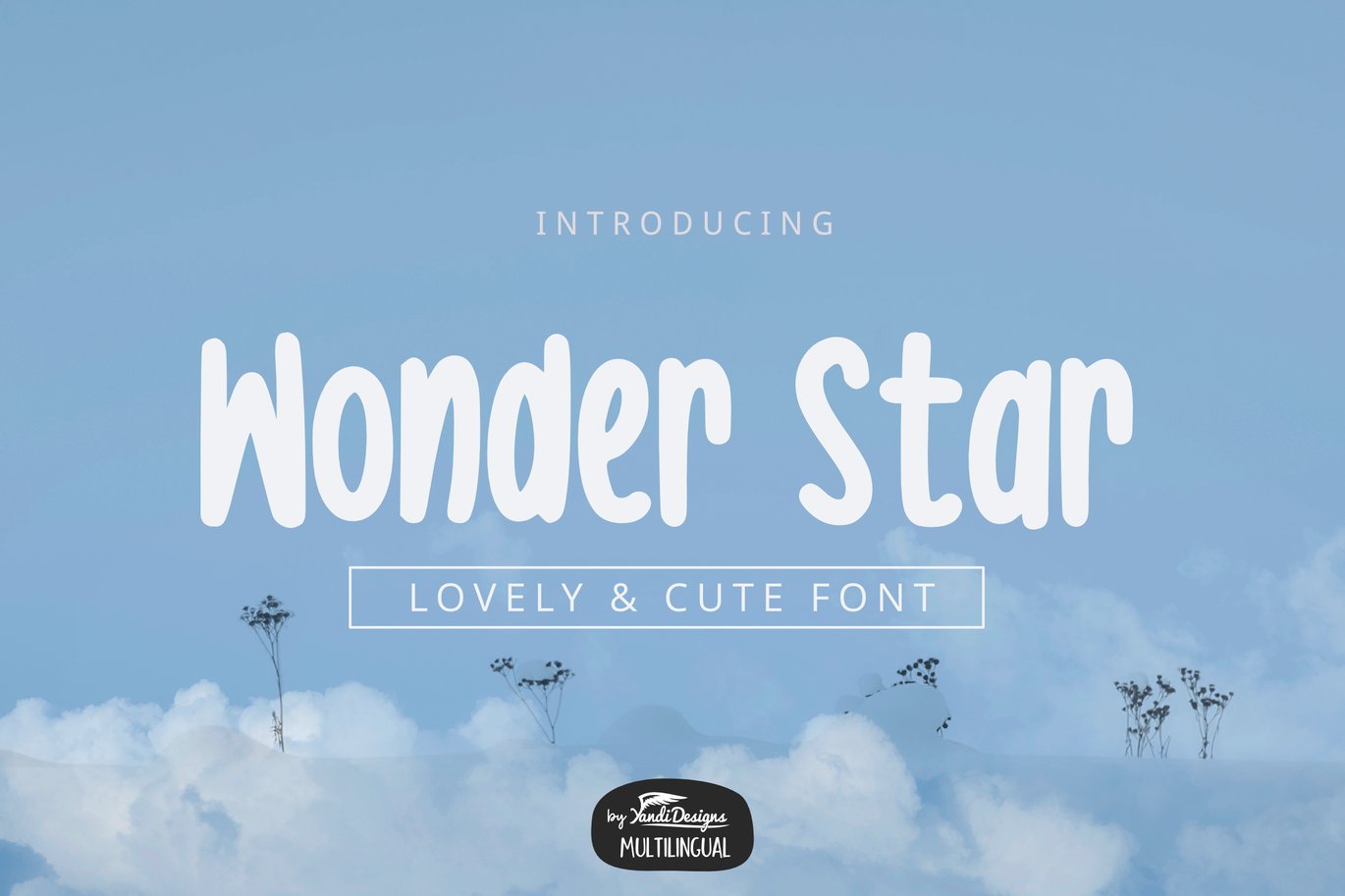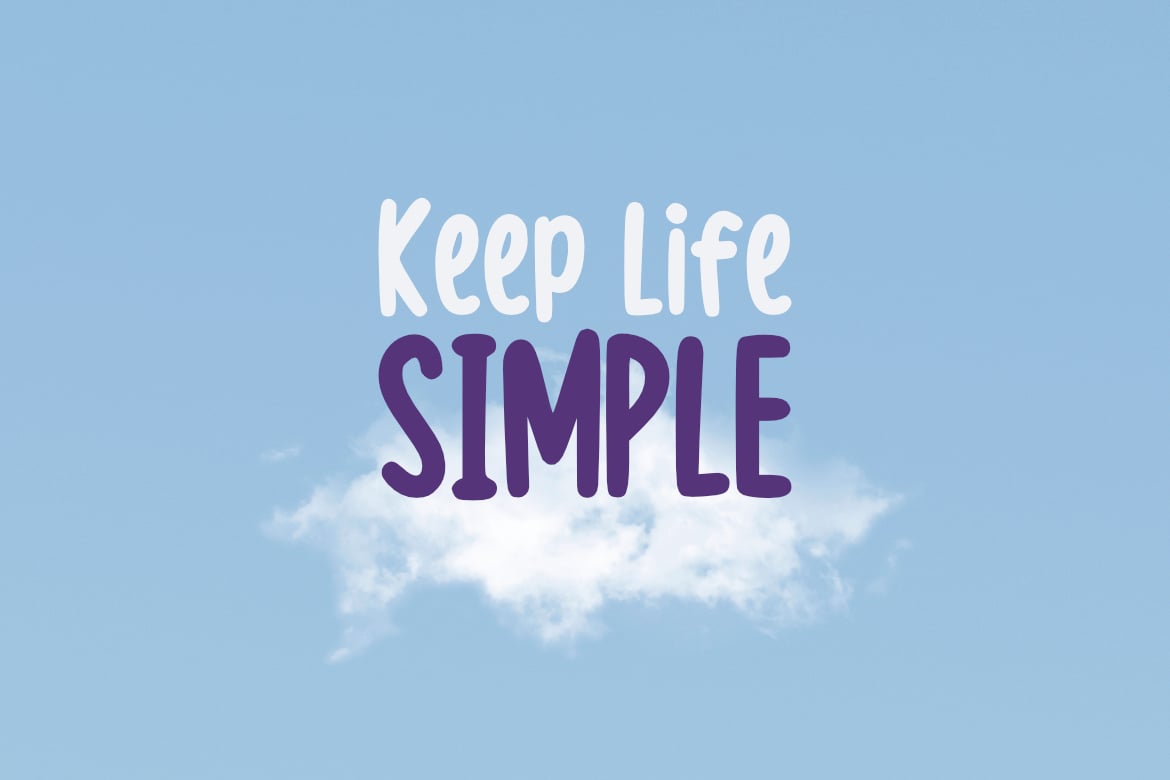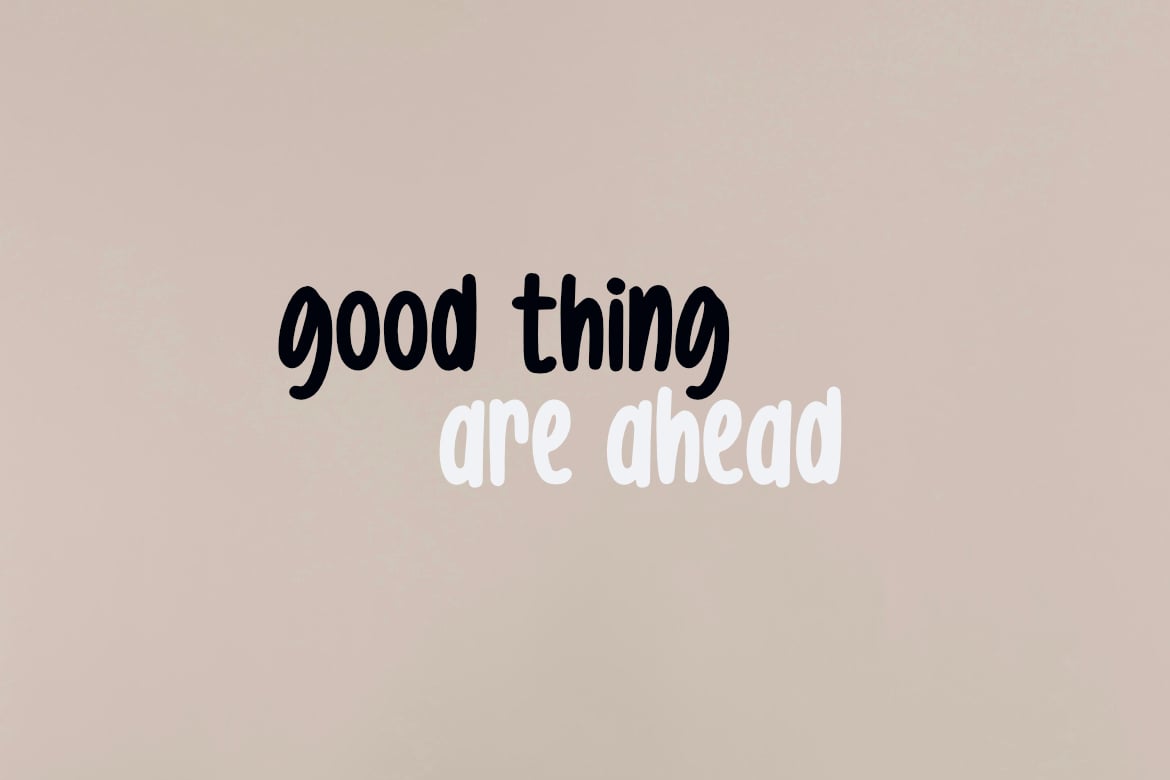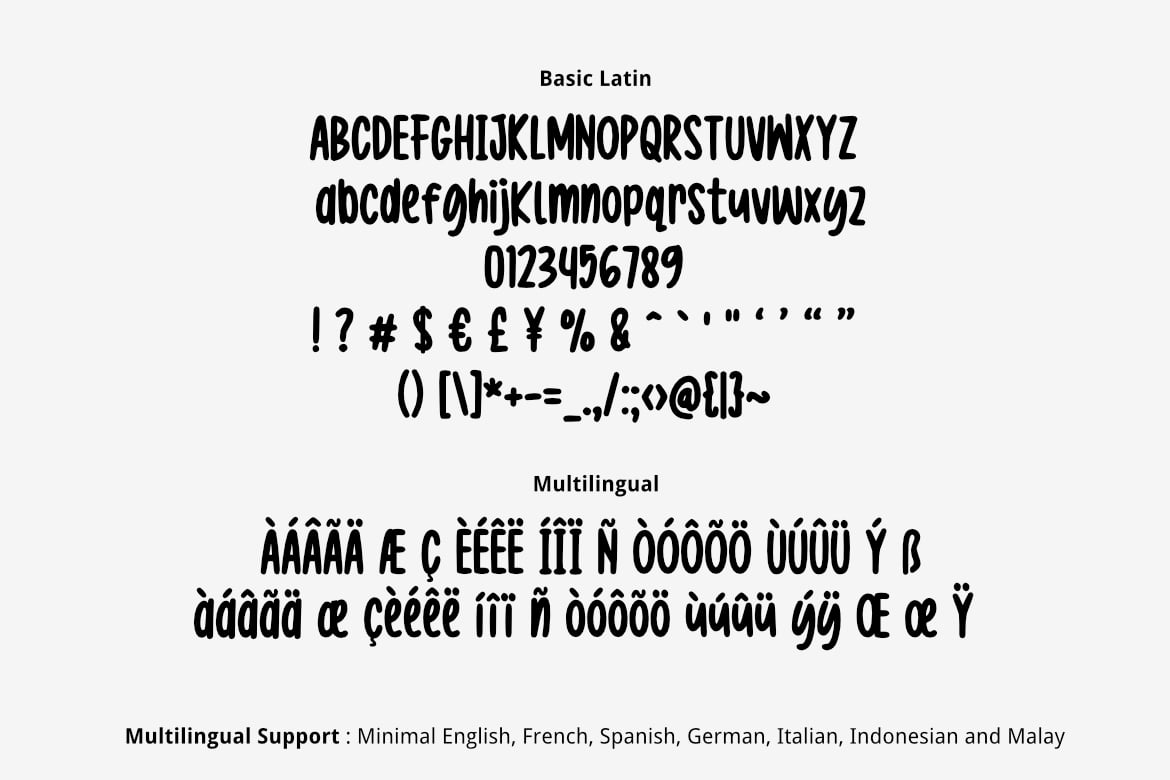
Wonder Star Font
Wonder Star is simple multipurpose handmade font, suitable for many project children book, quotes, logo , heading , title etc.
Basic Latin (Standard English character , number, symbol)
Multilingual Support (minimal English, French, Spanish, German, Italian, Indonesian, Malay)